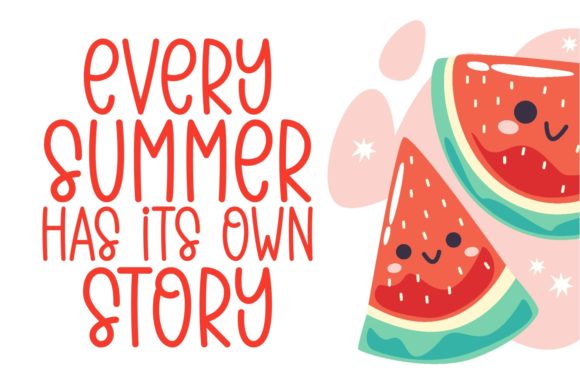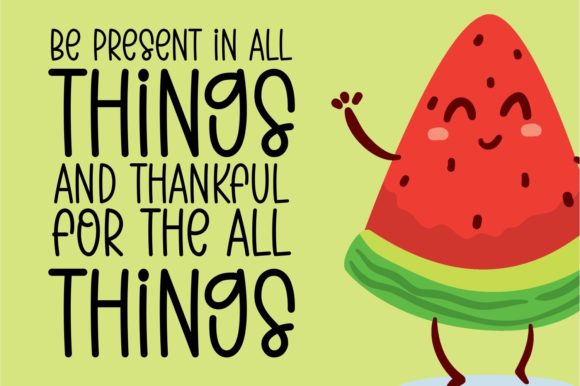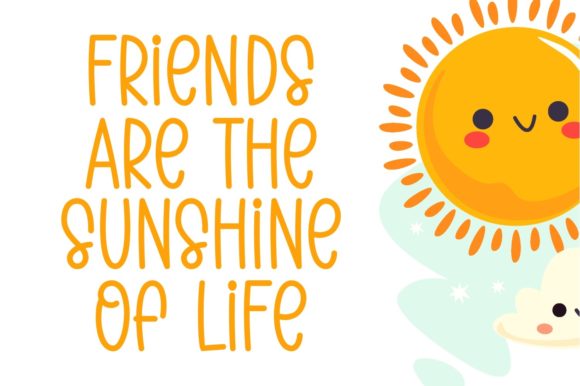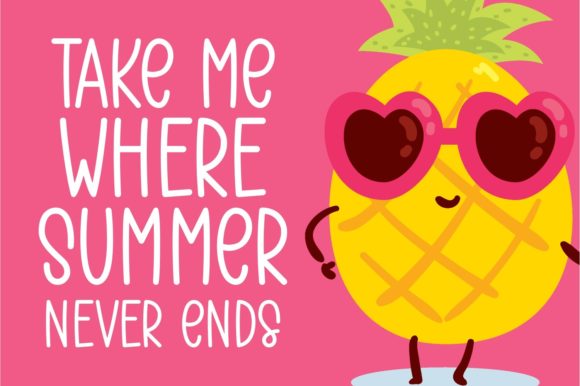
The Great Summer Font: A Cute and Authentic Handwritten Style for Your Designs
I’ll never forget the summer I spent perfecting my chalkboard quote designs. I was determined to create the perfect visual for a client’s wedding, but something was missing – a font that felt authentic, personal, and realistic. That’s when I stumbled upon the Great Summer font, a cute and thin lettered handwritten font that has since become a staple in my design toolkit.
As a designer, I’m always on the lookout for fonts that can elevate my work and make it stand out. Here’s what I love about Great Summer:
- ✨ Its authentic, handwritten look adds a personal touch to any design
- ✅ The thin lettering is perfect for chalkboard quotes, teaching materials, and more
- 💫 It’s incredibly versatile and can be used for a wide range of design projects
Of course, no font is perfect, and Great Summer has a few quirks:
- 🤔 Some letters may appear a bit too delicate for bold or bright backgrounds
- ⚠️ It may not be the best choice for very long texts or body copy
The Story Behind Great Summer
Great Summer was designed with the intention of creating a font that felt like a handwritten note. The designer wanted to capture the essence of a chalkboard quote, with all its imperfections and quirks. The result is a font that’s both authentic and beautiful.
| Font Name | Great Summer Font |
| Author | Keithzo (7NTypes) |
| What is the Great Summer font best used for? | The Great Summer font is perfect for chalkboard quotes, teaching materials, and other designs where a personal, handwritten look is desired. |
| Does Great Summer support OpenType features? | Yes, Great Summer supports OpenType features like ligatures, glyphs, and stylistic alternates. |